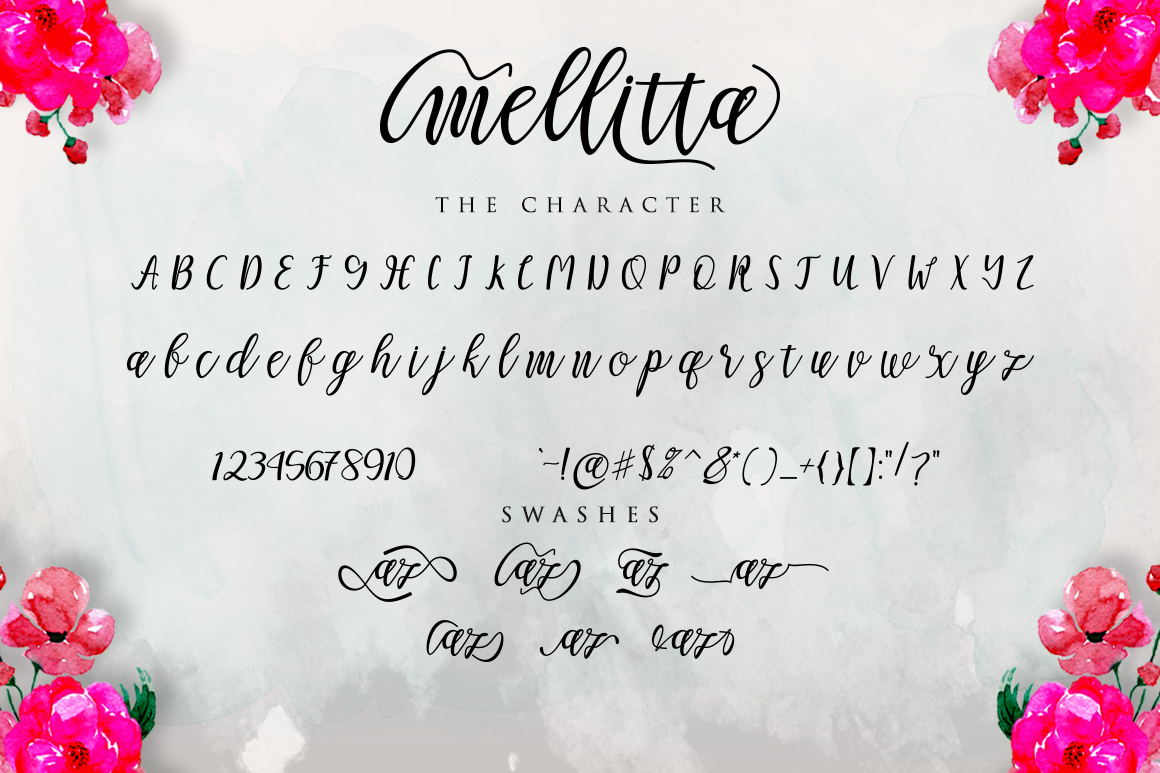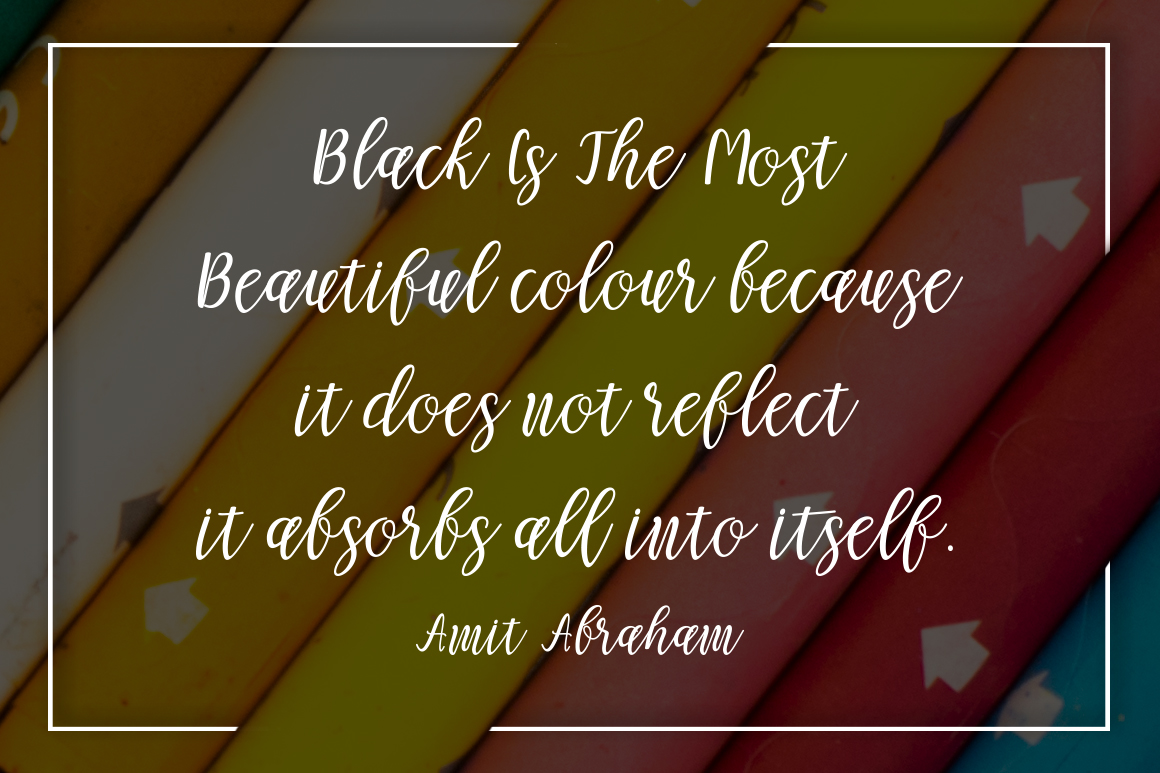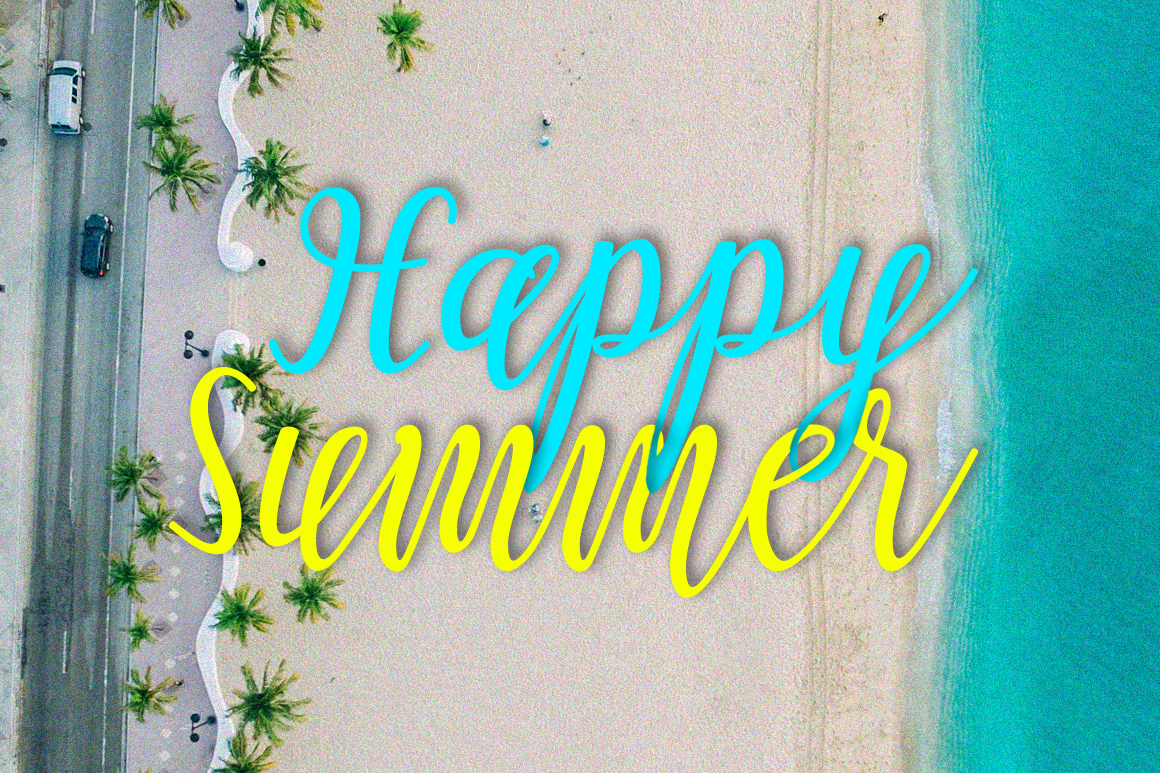
Unlocking the Magic of Handwritten Style with Mellitta Script Font
Have you ever found yourself scribbling down ideas in a notebook, only to discover that your handwritten notes become the most cherished parts of your creative project? For many designers, there’s something special about the imperfections and character of handwritten text that can make a design truly shine. And that’s where the Mellitta Script Font comes in – a stunning handwritten script that’s sure to elevate your designs to the next level.
Whether you’re working on a logo, typography project, or simply want to add some personality to your design, the Mellitta Script Font is an invaluable resource. With its high-quality design and transparent background, it’s perfect for layering over images or using as a standalone element. And the best part? It’s available for free download, making it an accessible design resource for designers of all levels.
Key Features of Mellitta Script Font
- Unique, hand-drawn design with a personal touch, ideal for creative projects requiring a high level of elegance and sophistication.
- Features a transparent background, allowing designers to easily overlay the font on top of images or other design elements without any visual clutter.
- High-quality design with a high level of detail and precision, making it perfect for use in a variety of creative projects, from logos and branding to digital art and print materials.
- Perfect for designers and artists looking for a unique and creative font to add a personal touch to their projects, with a wide range of customization options and possibilities.
Honest Review: Mellitta Script Font
I recently stumbled upon the Mellitta Script Font, and I must say it’s been a fantastic addition to my design resource library. As a designer, I’m always on the lookout for high-quality fonts that can elevate my creative projects.
Here’s what works well:
- ✨ Beautiful, elegant script style that’s perfect for adding a touch of sophistication to designs
- ✨ High-quality design that’s crisp and clear, even at smaller font sizes
However, I do have a few concerns:
- ⚠️ The font doesn’t come with a transparent background, which can be a limitation for designers who need to use it on complex backgrounds
Overall, I’m impressed with the Mellitta Script Font. Its high-quality design and elegant script style make it a valuable addition to any designer’s library. If you’re looking for a beautiful script font for your next creative project, I’d definitely recommend giving it a try – just be aware of the limitations mentioned above.
Tips for Getting the Most Out of Mellitta Script Font
To get the most out of Mellitta Script Font, use it in combination with other high-quality design resources, such as images and graphics. You can also experiment with different font sizes, colors, and styles to create a unique look. Additionally, use the font in a design project where its elegant and cursive style can shine, such as a wedding invitation or a branding project.
Mellitta Script Font is commonly used in creative projects such as wedding invitations, branding, and packaging design. It’s also a popular choice for digital designs, such as social media graphics and website headers. Its elegant and cursive style makes it perfect for designs that need a touch of sophistication and elegance.